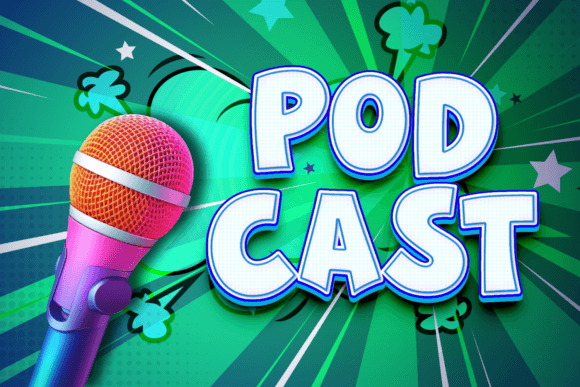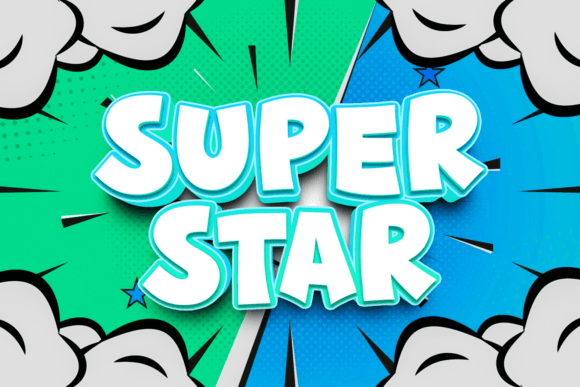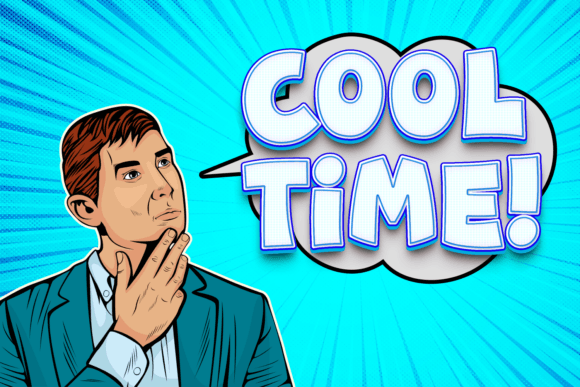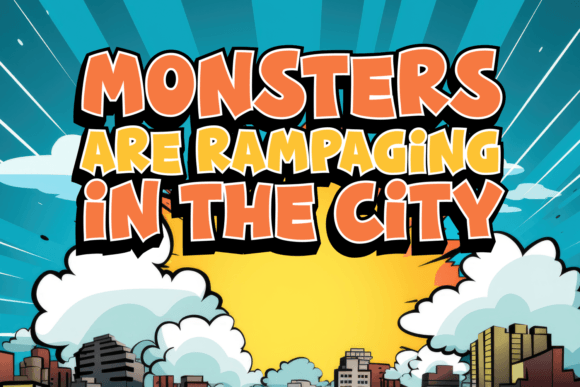
Introduction to Marco Comic Font
Do you remember the excitement of picking out a new font for a creative project? The thrill of finding that perfect combination of style and readability that brings your idea to life? As designers, we’ve all been there, scouring the web for the perfect design resource to elevate our work. And today, we’re excited to introduce you to the Marco Comic Font, a stunning display font that’s sure to become a staple in your design arsenal.
With its childlike charm and professional polish, the Marco Comic Font is the perfect choice for a wide range of applications, from children’s projects to more sophisticated creative endeavors. Its structured yet playful design ensures readability and a fun tone, making it an invaluable resource for designers looking to add a touch of whimsy to their work.
Whether you’re working on a free download project or a high-quality print campaign, the Marco Comic Font is a versatile and reliable choice that’s sure to deliver. And with its transparent background, you can easily integrate it into your designs without worrying about background distractions.
Key Features of Marco Comic Font
- High-quality design resource ideal for creative projects, offering a unique and playful style.
- Its distinctive and whimsical design makes it perfect for adding a touch of personality to logos, headings, and other design elements.
- Marco Comic Font is a versatile design resource that can be used in a variety of creative projects, from children’s books to advertising campaigns.
Honest Review: Marco Comic Font
I recently had the chance to dive into the Marco Comic Font and I’m excited to share my thoughts with fellow designers.
What works well: ✨ The font is incredibly versatile, suitable for a wide range of creative projects. It’s perfect for comic books, graphic novels, and even editorial content. I particularly appreciate its high-quality design and the option to download it for free.
The Marco Comic Font also comes with a transparent background, which is a huge plus when working with complex compositions. It makes it easier to layer and arrange different design elements.
Overall, I’m quite impressed with the Marco Comic Font. It’s a valuable design resource that can elevate your creative projects. Just be aware of its limitations and use it accordingly.
Marco Comic Font
Design Resource for Your Creative Project
The Marco Comic Font is a high-quality, free download that can elevate your design projects. With a transparent background, this font is perfect for adding a touch of humor and playfulness to your work.
Getting the Most Out of Marco Comic Font
To get the most out of the Marco Comic Font, use it in creative ways such as:
- Adding humor to your design projects
- Creating eye-catching headlines and titles
- Designing fun and playful graphics
The Marco Comic Font is perfect for:
- Designing children’s books and educational materials
- Creating social media graphics and ads
- Developing humorous and playful brand identities
Alternatives to Marco Comic Font